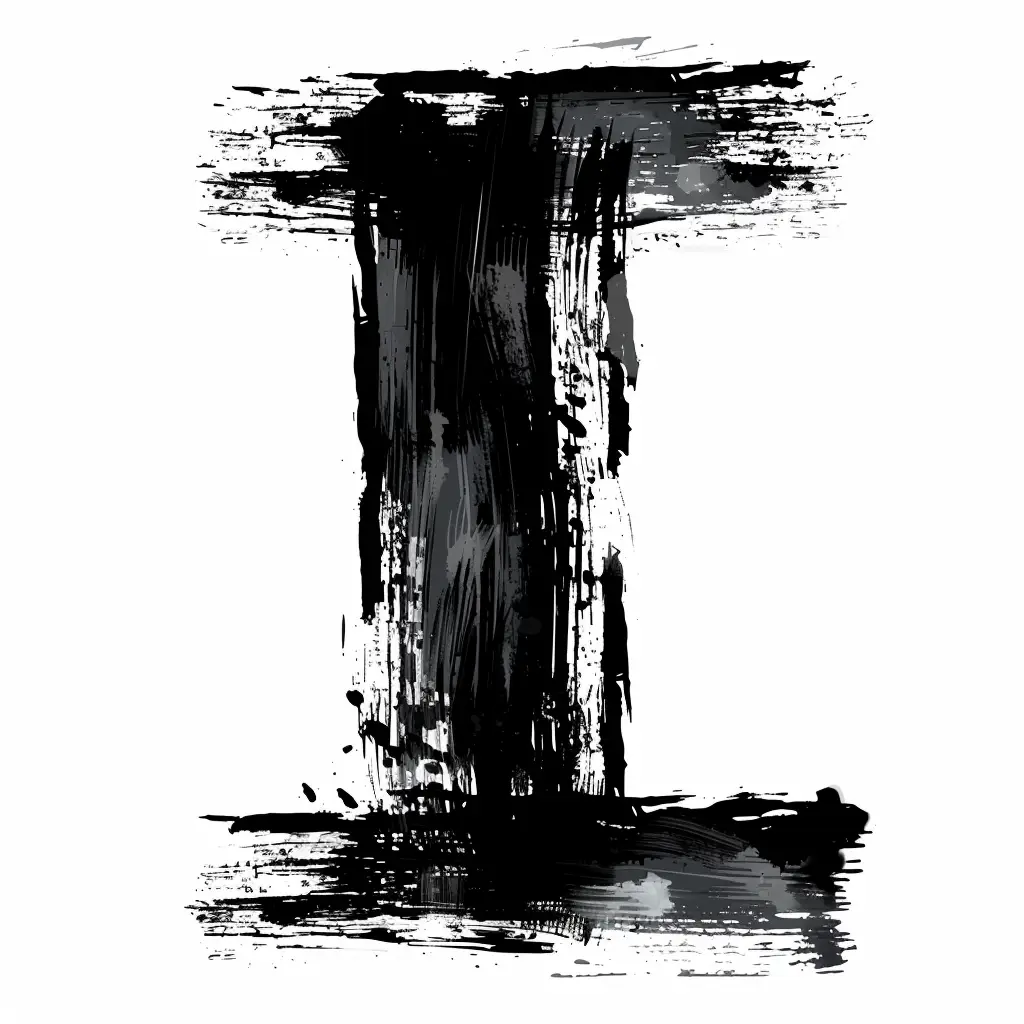
This image features a stylized, abstract representation of the letter "I," rendered in a bold, grungy brushstroke style. The design uses stark black and varying shades of gray against a white background, with rough, textured strokes and splatters creating a dynamic, artistic effect. The composition emphasizes contrast and texture, giving the letter a rugged, expressive appearance.